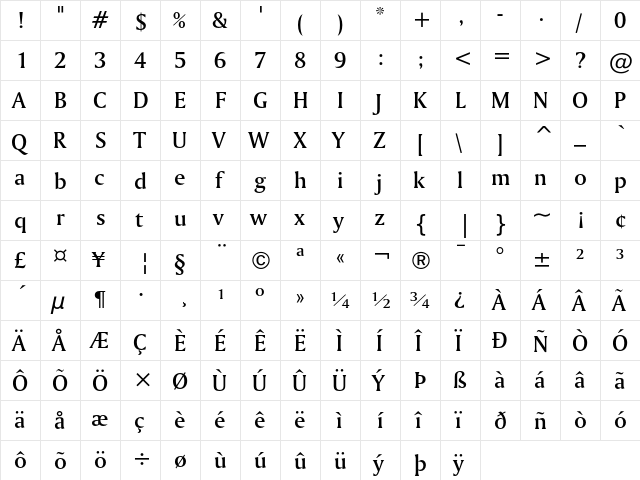
Bitstream Amerigo Medium
Design Context for Bitstream Amerigo Typeface
Bitstream Amerigo takes a measured approach to typography — its balanced proportions and neutral character make it a reliable workhorse for both digital and print work.
Pro Tip: Pair Bitstream Amerigo with a font of contrasting weight or personality to build a more expressive typographic hierarchy.